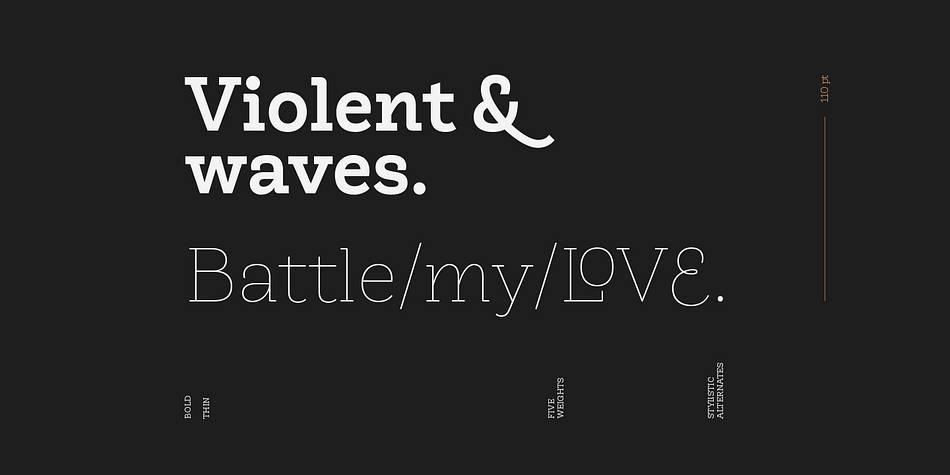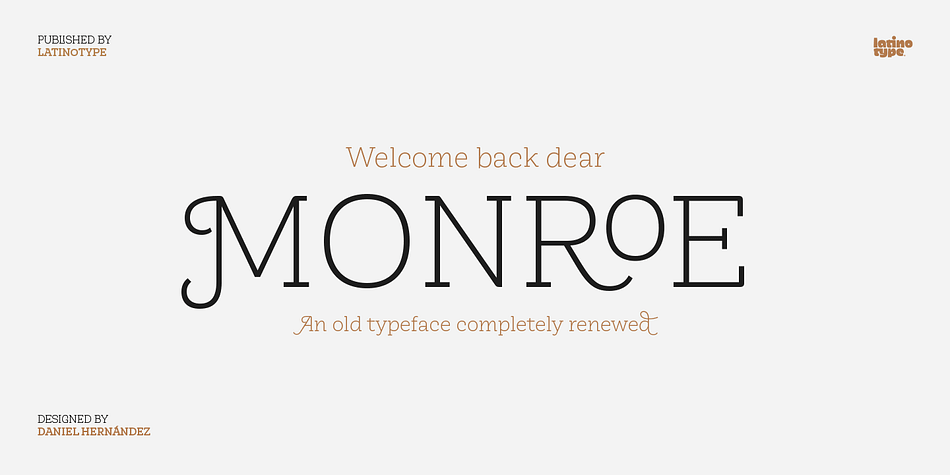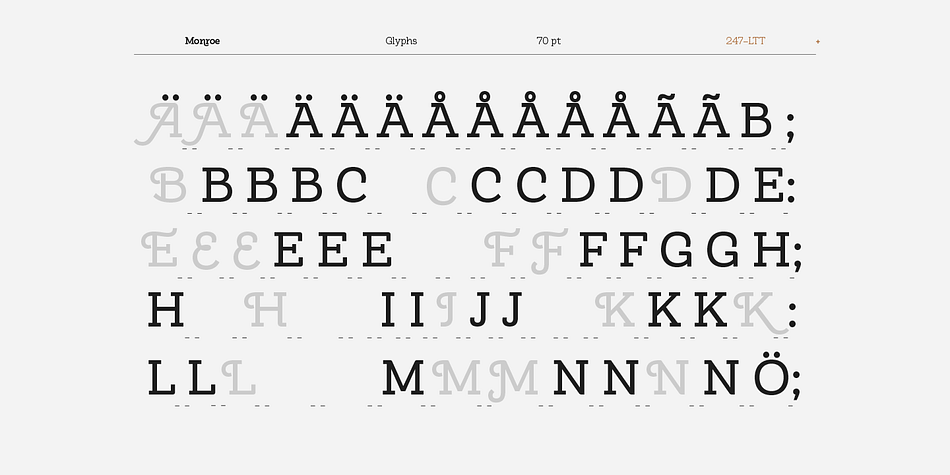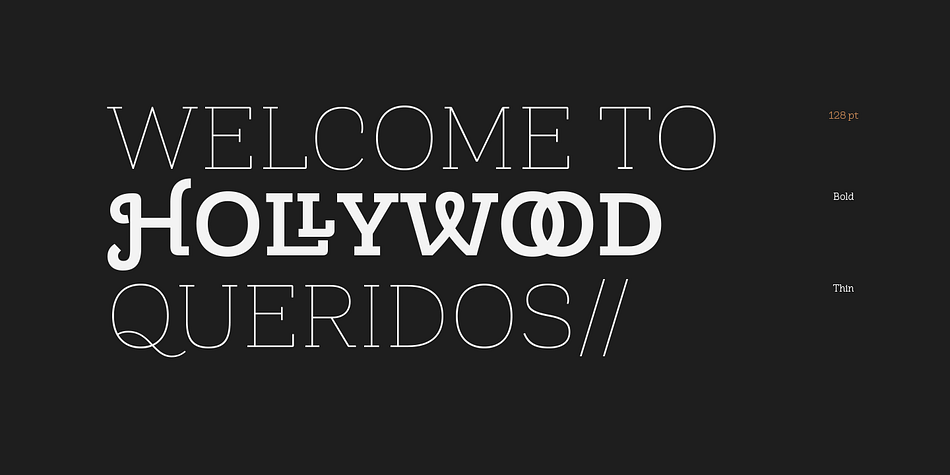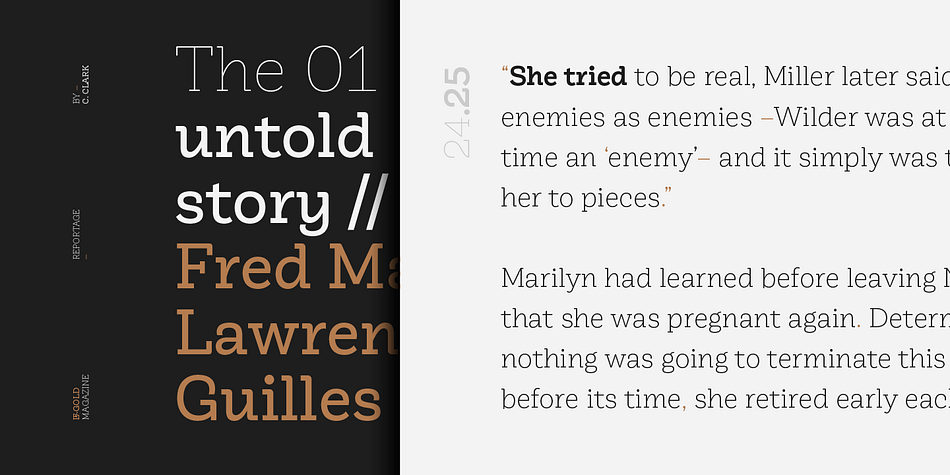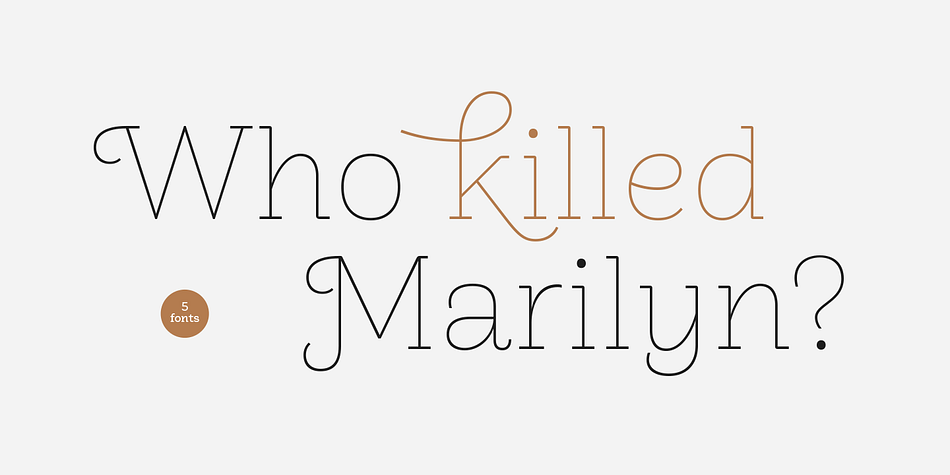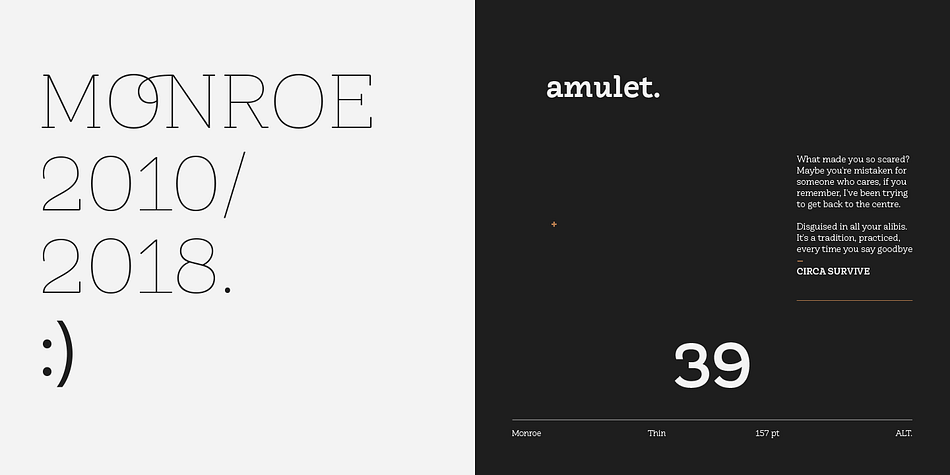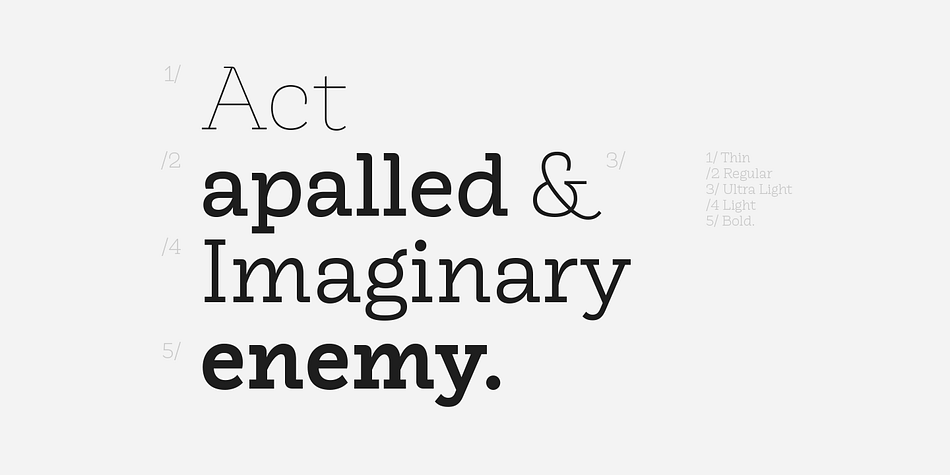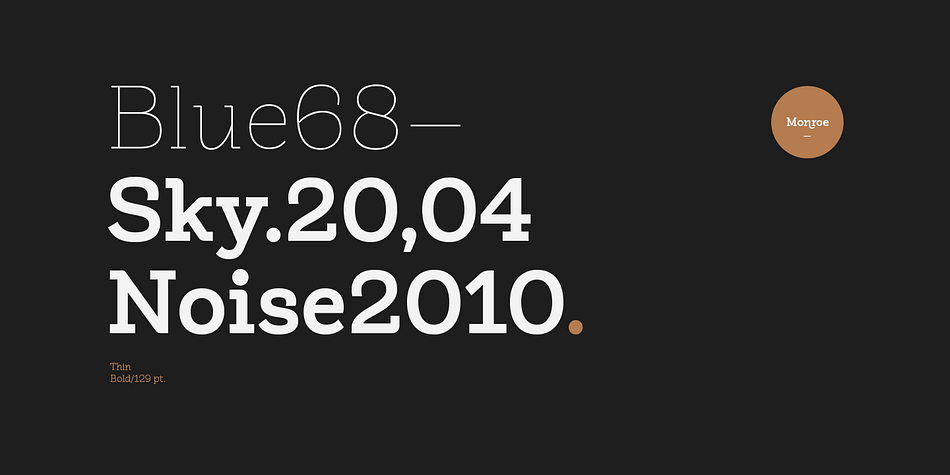
Designed by Daniel Hernández, Monroe is a slab serif font family. This typeface has five styles and was published by Latinotype.
Monroe was designed in 2010 and then in 2013 font’s designer decided to stop selling it. Eight years after its released, Monroe returns in a new and upgraded version—with an improved drawing and spacing—which includes more weights as well as alternate glyphs.
Each font style has 819 glyphs and the whole set contains 394 characters which support 207 Latin-based languages. Monroe also includes 5 stylistic sets that offer a wide range of signs, swashes and discretionary ligatures—all specially made to add esthetic value to your designs. The family comes in 5 weights: Thin, Ultra Light, Light, Regular and Bold.
Monroe was designed by Daniel Hernández with the collaboration of Alfonso García.